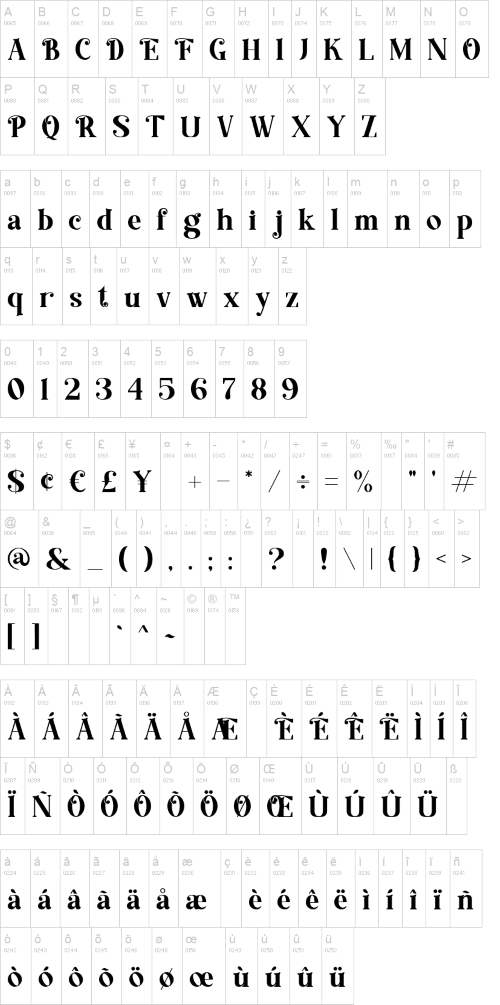
Foremost Font
Foremost Font is a bold, modern display typeface designed to make a strong visual statement. With its clean geometry, solid structure, and confident weight, it works perfectly for headlines, logos, posters, and branding. Foremost delivers clarity, strength, and a professional contemporary look in any design.
➤ Font Name: Foremost
➤ Designer: Sohel Studio